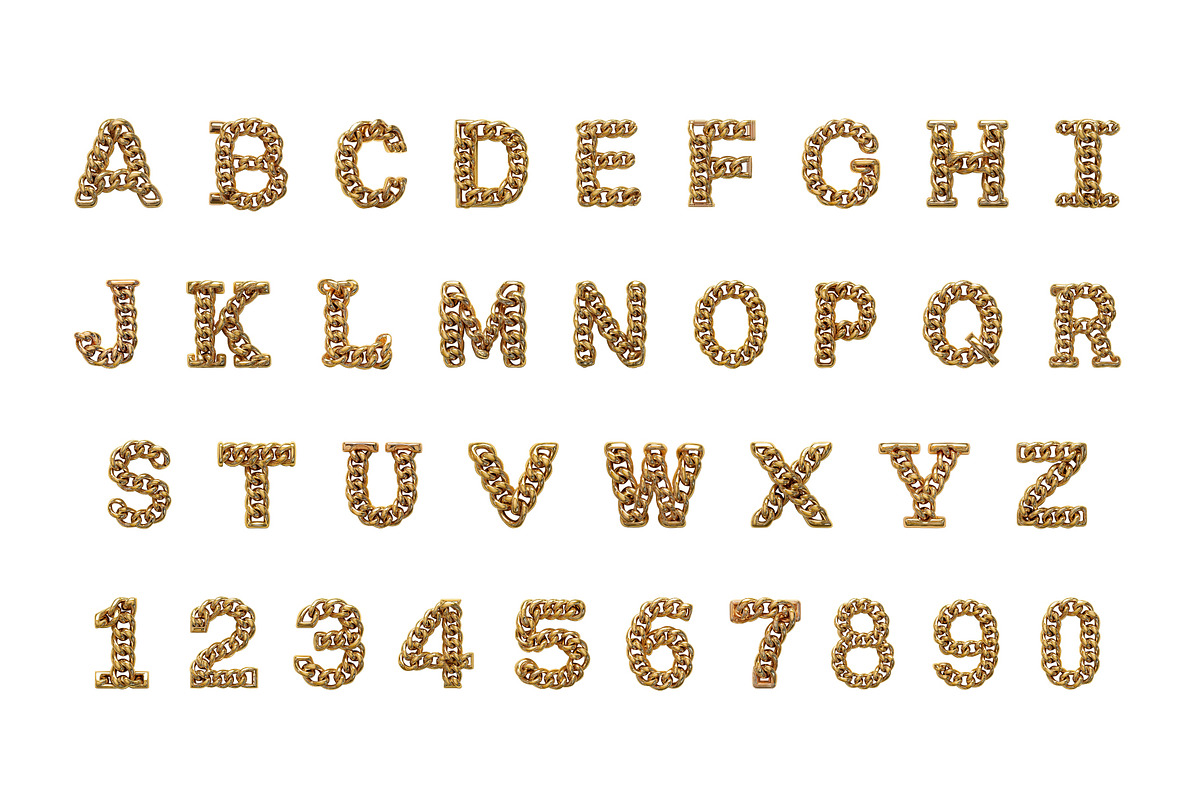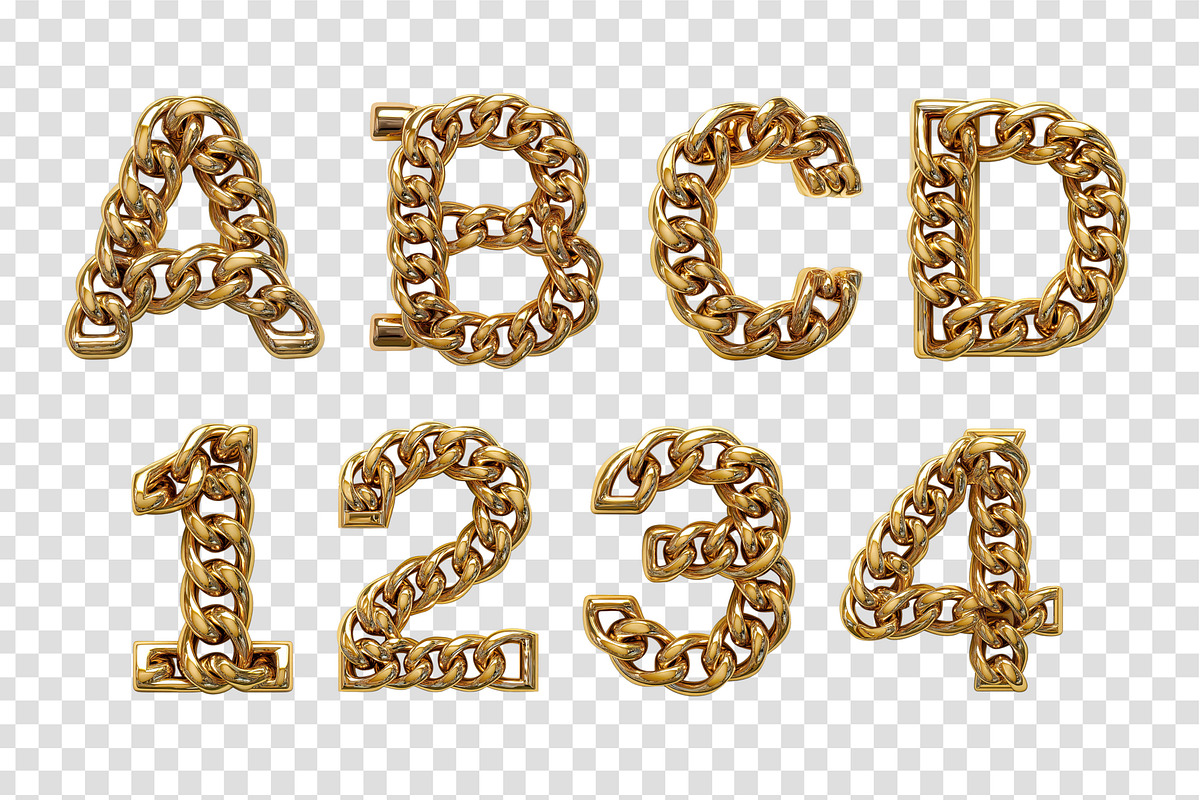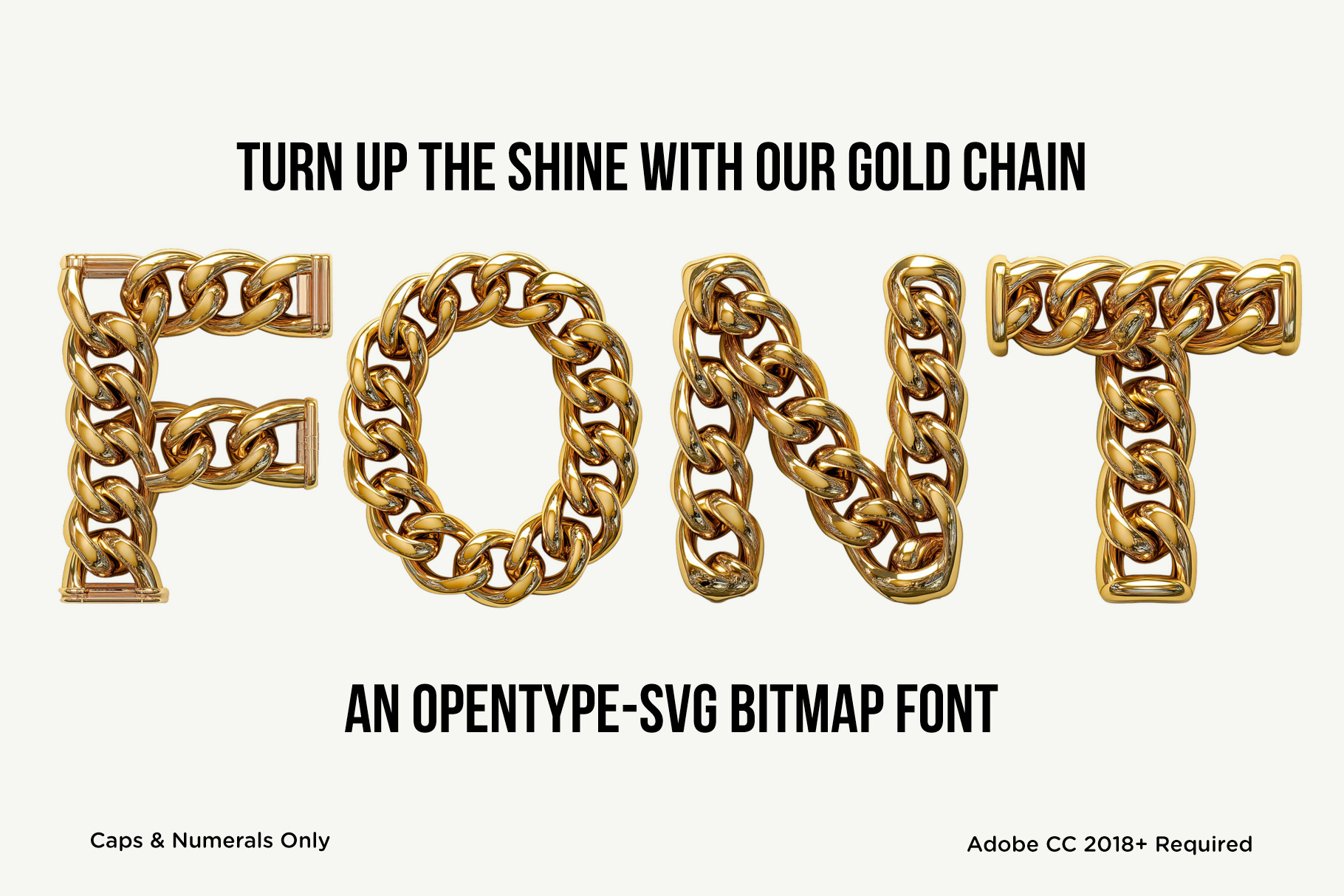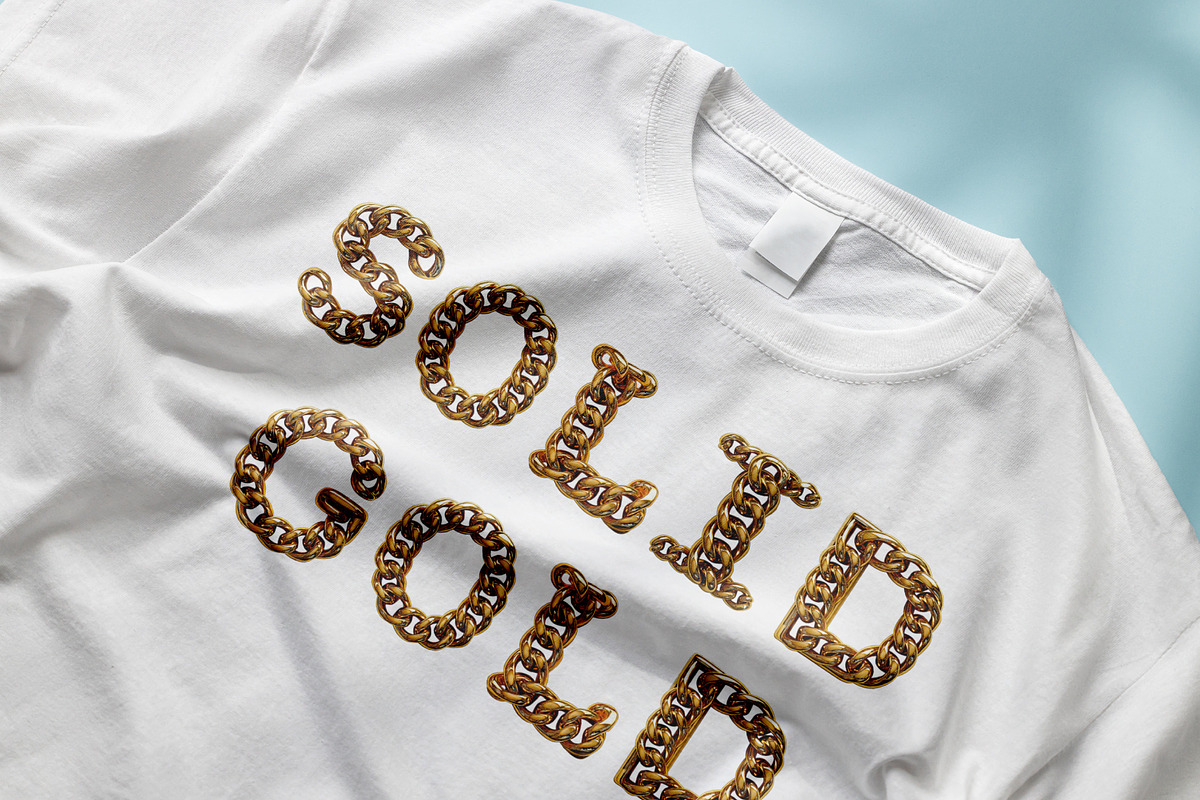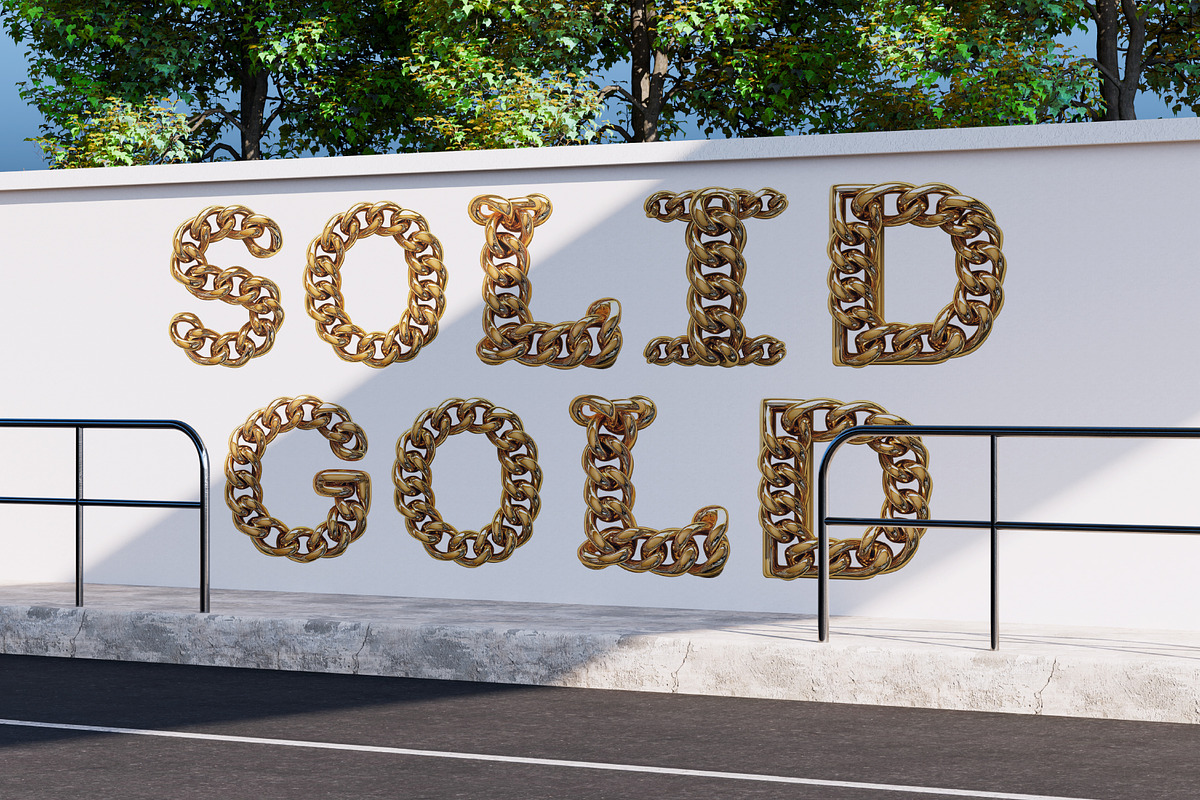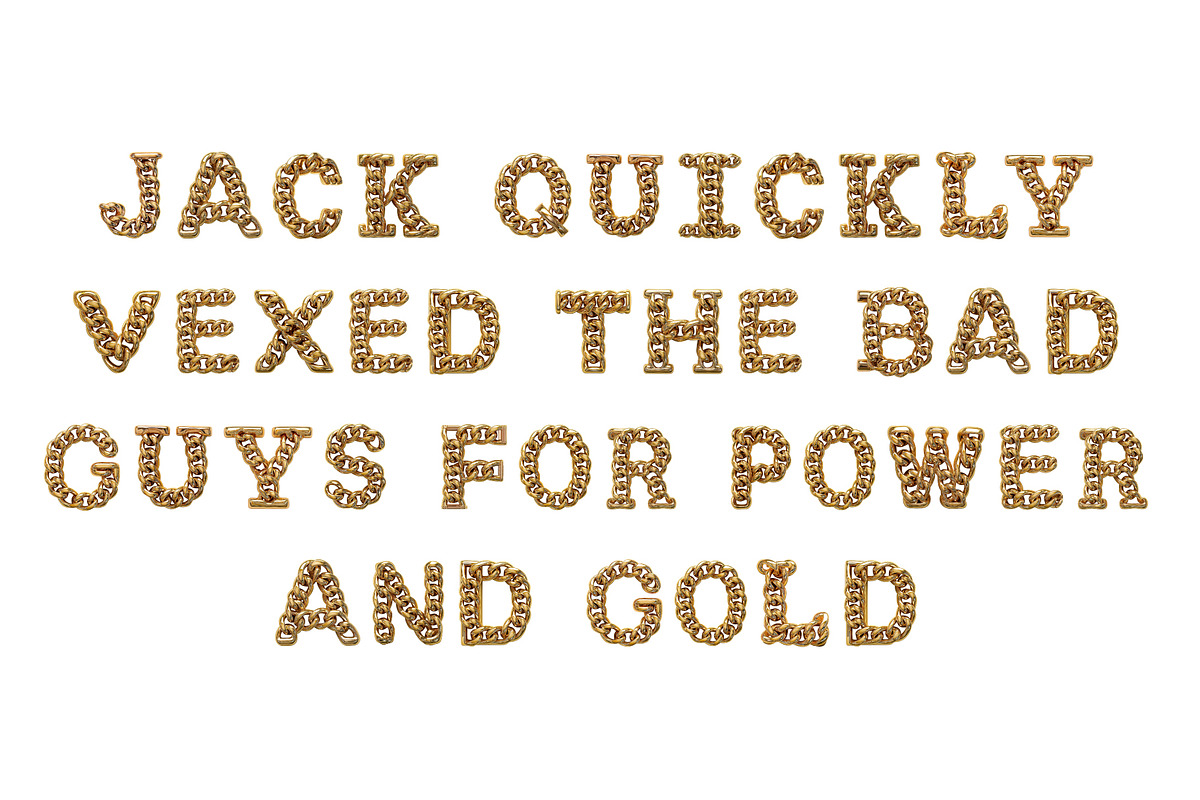
Gold Chain 3D Font
Gold Chain is a bold 3D display font forged from shining, interlinked chains of pure gold. Each letter is crafted with high-detail metallic texture and realistic reflections, bringing the luxury of 24-karat typography to your designs. Equal parts street and high fashion, it’s perfect for posters, apparel, album covers, logos, and bold branding projects that demand attention and attitude.
This OpenType-SVG bitmap font includes uppercase letters and numerals only. Each glyph features a baked-in gold texture for a photorealistic metallic effect — ideal for large display use such as headlines, packaging, or statement tees.